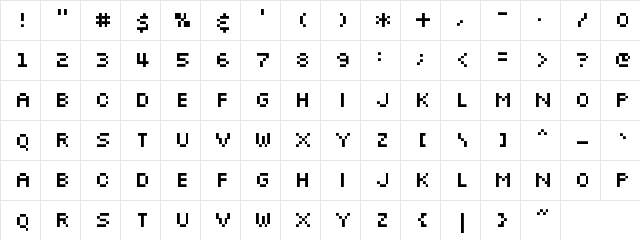
Silkscreen Expanded Normal Font Preview
Silkscreen Expanded Normal
Silkscreen Expanded Normal Font Details
Design Context for Silkscreen Expanded Typeface
Silkscreen Expanded offers clean, dependable letterforms without strong stylistic allegiance, making it a practical choice for designers who need flexibility.